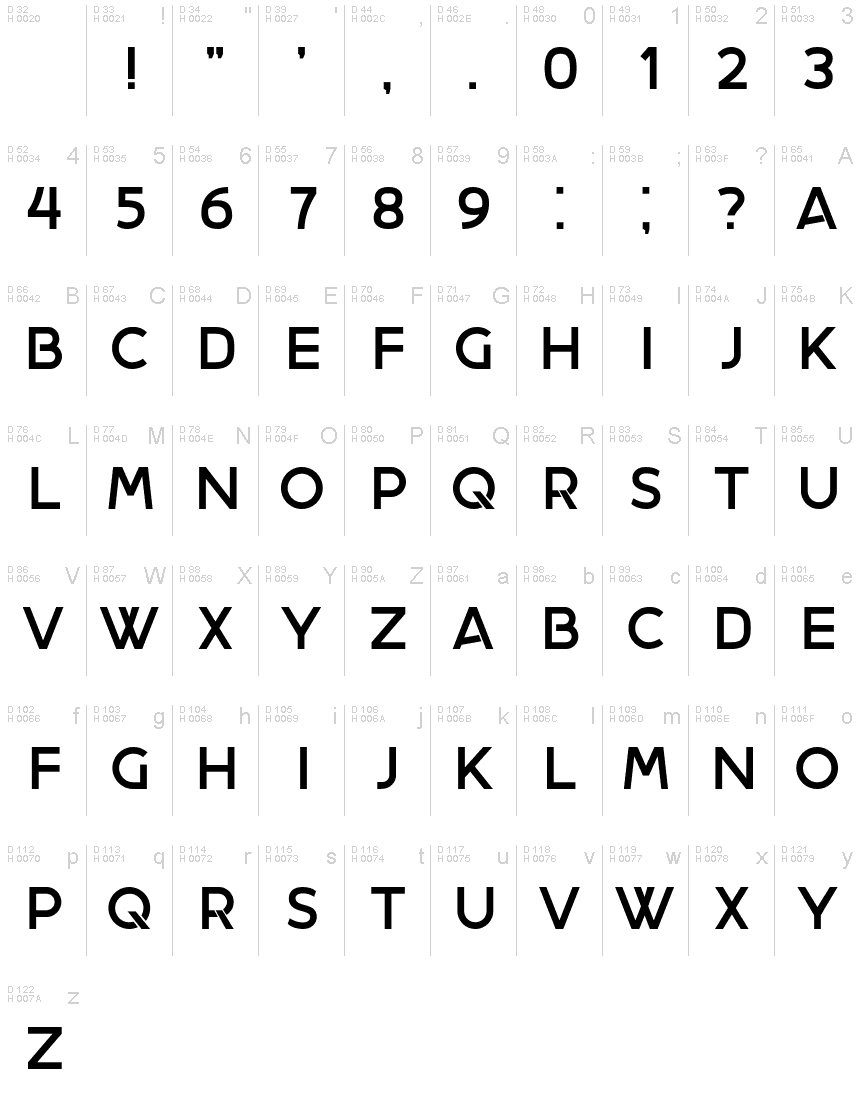
Dalia Regular
Dalia, a modern sans serif font designed by Vladimir Nikolic, exudes sophistication and versatility. With its semi-expanded width, Dalia is perfect for projects that demand a contemporary touch without compromising readability.
Its clean lines and sleek aesthetics make it an ideal choice for branding materials, such as logos and advertisements. Additionally, Dalia's balanced proportions lend themselves beautifully to editorial designs, including magazines and brochures.
Whether used in digital or print media, this font effortlessly captures attention while conveying a sense of modern elegance.